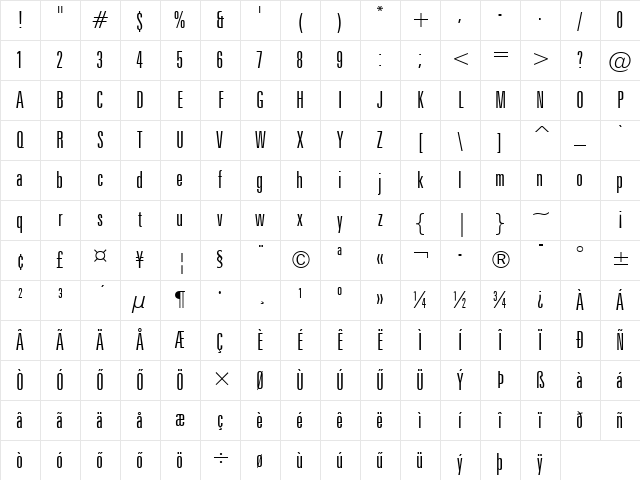
Huni_Swiss 742 LtXCn BT Regular
Complete Huni_Swiss 742 LtXCn BT Regular glyph index. Displaying only characters natively supported by Huni_Swiss 742 LtXCn BT Regular font.
Design Context for Huni_Swiss 742 LtXCn BT
Huni_Swiss 742 LtXCn BT is a composed and adaptable typeface that performs quietly and consistently across a wide range of design contexts.
Pro Tip: Use Huni_Swiss 742 LtXCn BT in both headline and body roles to test its range before committing to a single application.